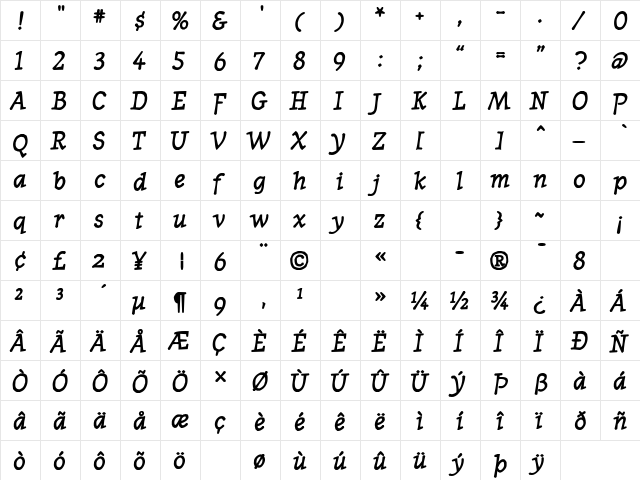
WesternPressSSK BoldItalic Font Preview
WesternPressSSK BoldItalic
Design Context for WesternPressSSK Typeface
WesternPressSSK taps into classic Western woodtype traditions — bold, characterful, and impossible to ignore. The slanted form adds forward momentum and visual energy. Its bold stroke weight gives it real presence on the page.
A natural fit for craft spirits, ranch branding, rodeo events, and Americana-inspired design work.
Font Pairing: Combine WesternPressSSK with a simple slab or neutral sans — period-accurate companions reinforce the vintage feel without competing for attention.
Pro Tip: Use WesternPressSSK for short, impactful bursts of text — it shines in poster headlines and product names rather than extended copy.